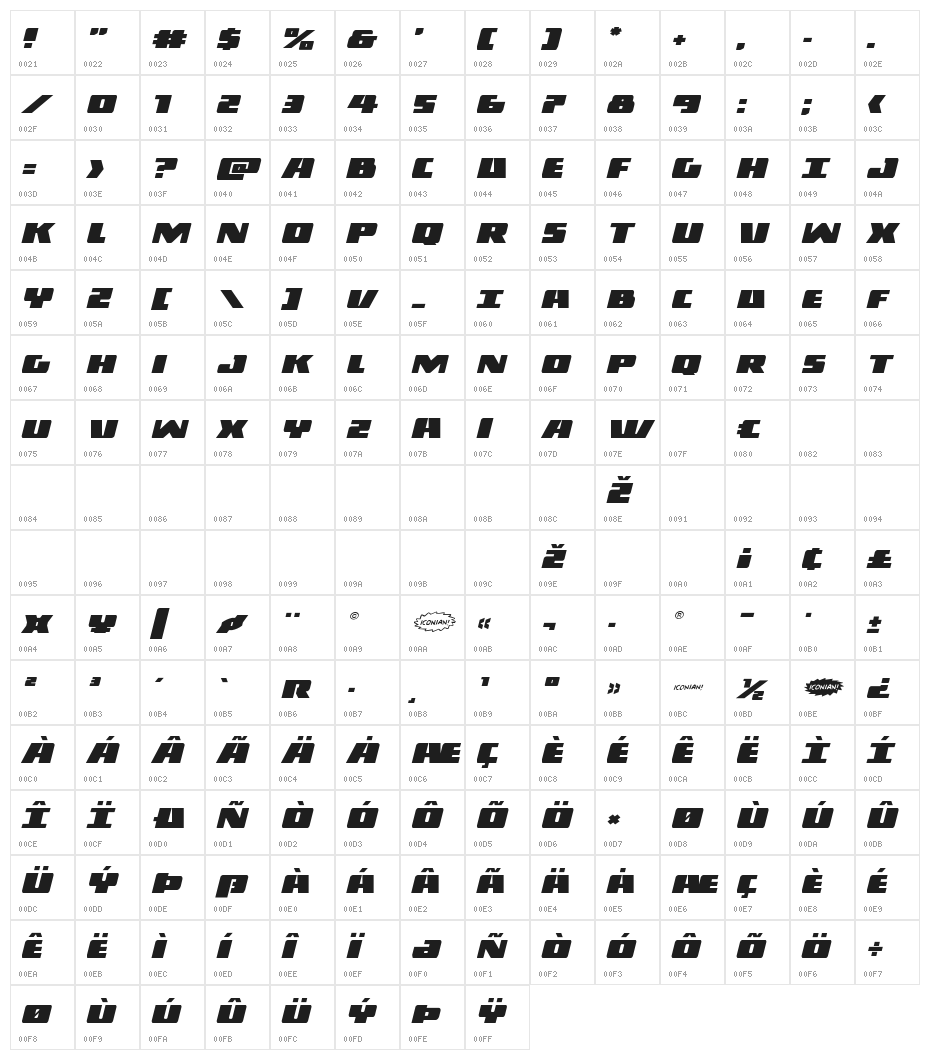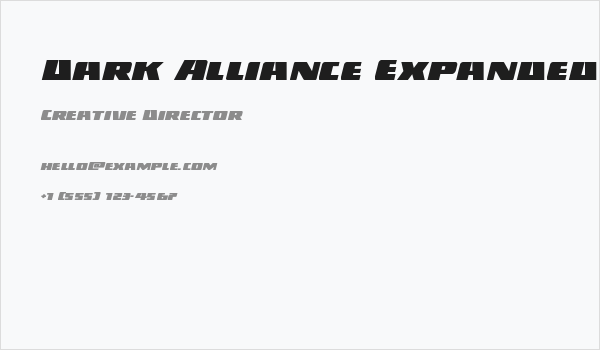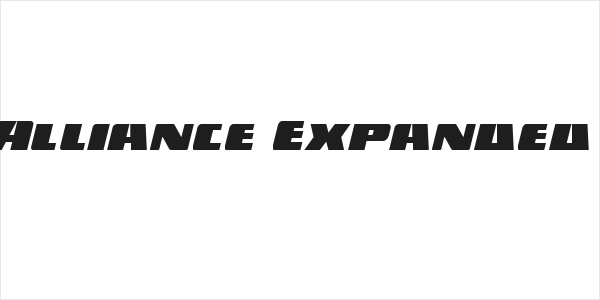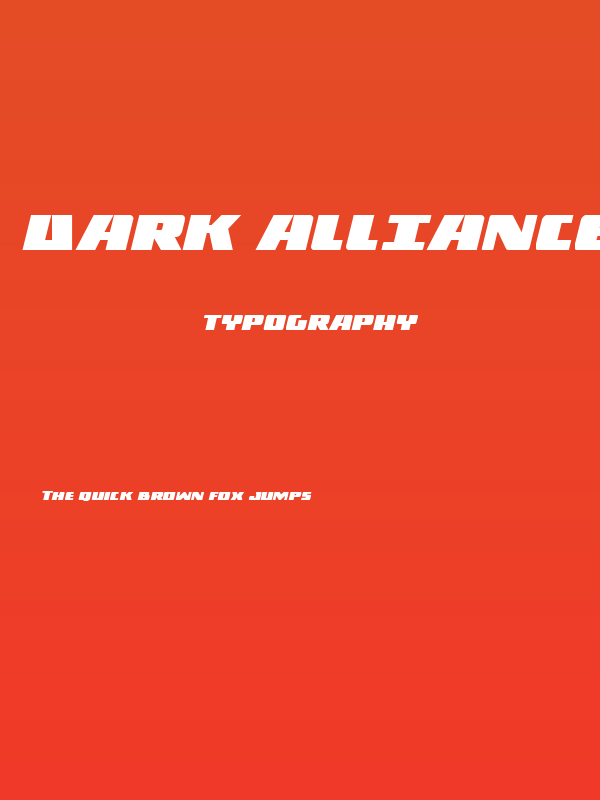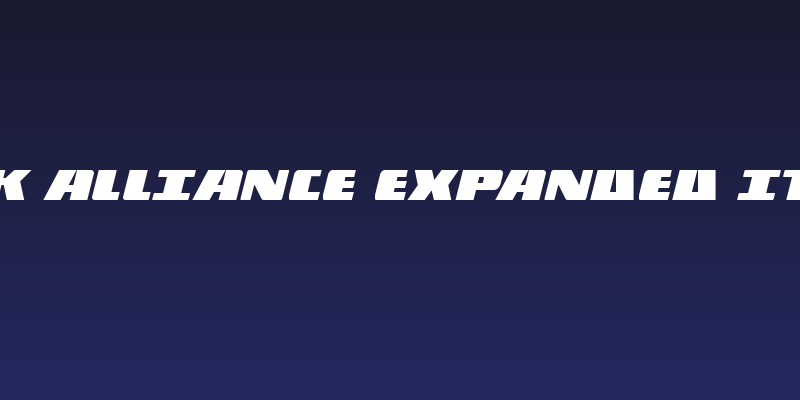
Dark Alliance Expanded Italic Font
Dark Alliance Expanded Italic Description
This font features a bold and dynamic style with a futuristic and angular design. The characters are expanded and italicized, giving them a sense of motion and energy. The uppercase and lowercase letters maintain a consistent geometric structure, with sharp edges and a slightly aggressive appearance. The numbers and special characters follow the same design principles, ensuring uniformity across all glyphs. This font is ideal for projects that require a modern and impactful look, such as video game titles, tech branding, or sci-fi themed designs.
| Proposed Projects | Ideal for video game titles, tech branding, sci-fi themed designs, and dynamic posters. |